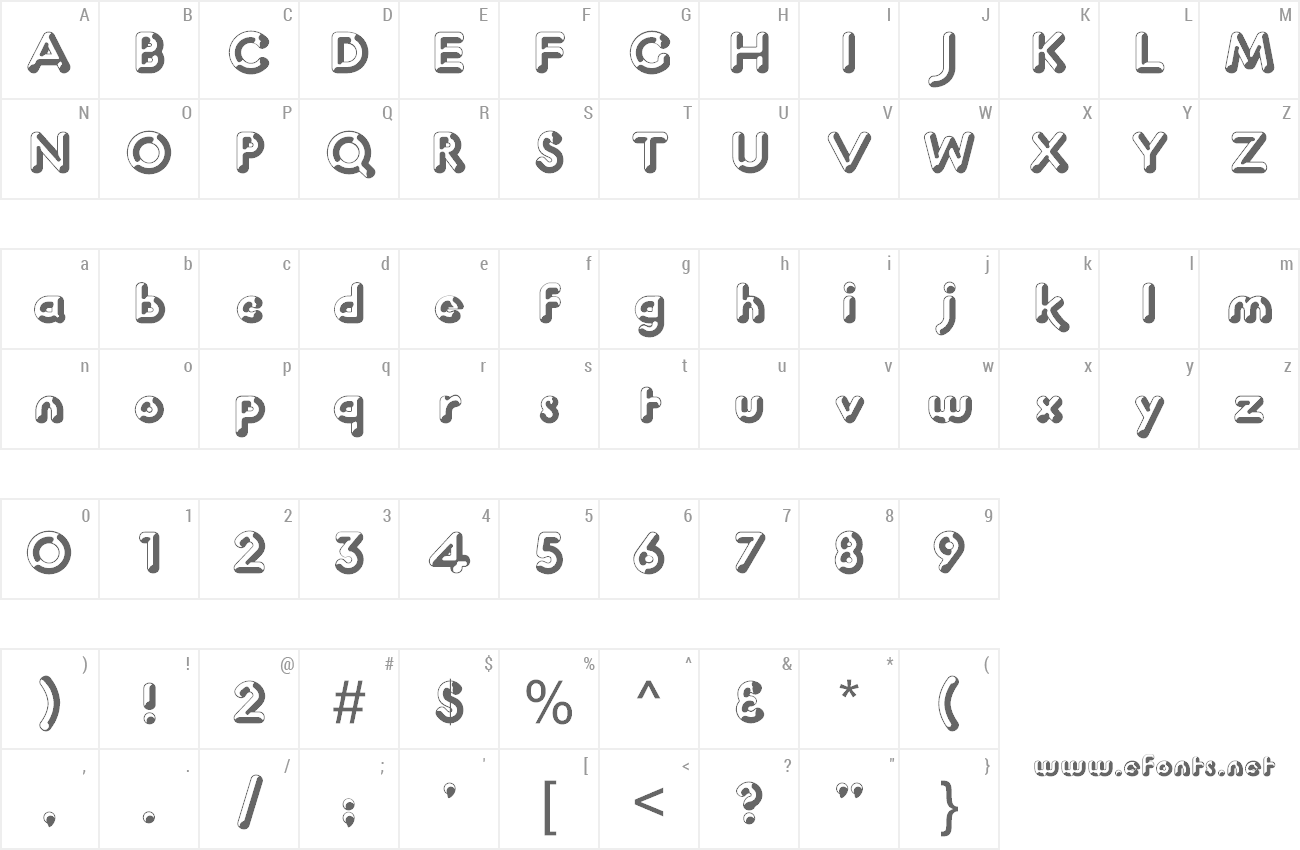
| Font name: | K22 Lucifer No. 1 |
| Author: | Toto |
| Note by Toto | |
| Based on Lucifer No. 1 as shown in Homage to the Alphabets and must have been derived from Pluto Outline, a dry transfer font by Letraset. Pluto Outline was originally designed by Face Ronchetti Ltd. |